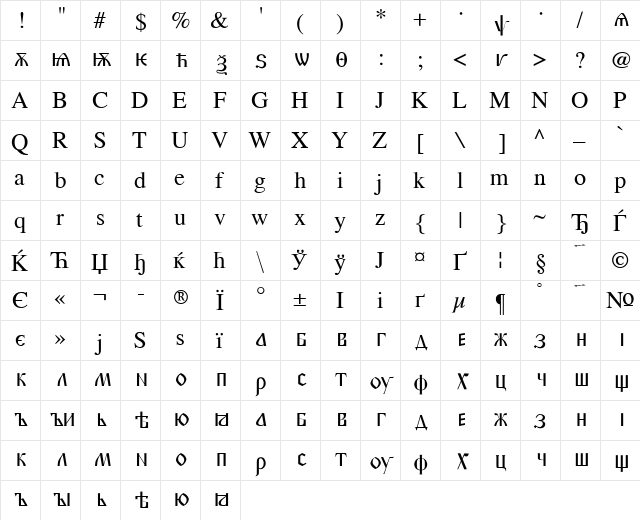
Old Church Slavonic Cyr Regular
Design Context for Old Church Slavonic Cyr Typeface
Old Church Slavonic Cyr takes a measured approach to typography — its balanced proportions and neutral character make it a reliable workhorse for both digital and print work.